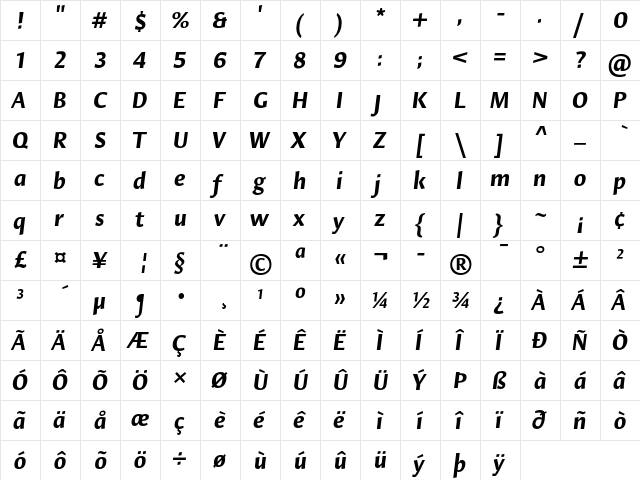
Hildegard LT Std Bold Italic Font Preview
| Foundry | Linotype GmbH |
| Designer | Jan Sonntag |
Design Context for Hildegard LT Std Typeface
Hildegard LT Std offers clean, dependable letterforms without strong stylistic allegiance, making it a practical choice for designers who need flexibility. The dynamic lean of this cut emphasises speed and emphasis in any layout. The heavy weight commands attention and anchors typographic hierarchies.
Pro Tip: Try Hildegard LT Std for annotation and caption copy alongside an upright companion — the contrast in angle creates a dynamic but ordered typographic system.